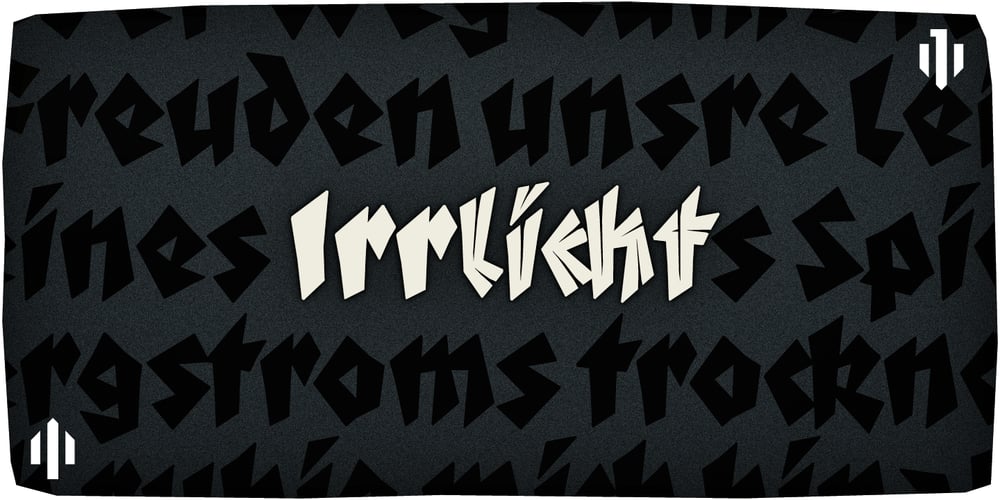
Irrlicht Font Family was designed by A. Hausel, Christian Heinrich Kleukens and published by Aarhaus. Irrlicht contains 2 styles and family package options. Irrlicht is based on C. H. Kleukens’ 1923 typeface Judith Type. Whilst Dunkle Irrlicht is a fairly faithful rendition and extension of Kleukens’ typeface, the Licht style was initially added as a stand-alone stencil version; yet, the two styles work perfectly together – for different nuances, for emphasis or simply stacked/layered. Irrlicht is equipped with upper- and lowercase ligatures, contextual and stylistic alternates, fractions, superior and inferior figures, extended language support and a few extra goodies. Additional information – How Irrlicht came to life Christian Heinrich Kleukens cut his Judith Type in 1923, at the peak of German expressionism, exclusively for publications with the Ernst-Ludwig-Press, such as a limited series of biblical prints – the first being the Book of Judith, hence the original’s name. I stumbled upon this typeface a couple of years ago in a nice little 1930 booklet of the Gutenberg-Gesellschaft and was struck by its forceful darkness on paper and its seemingly simple, crude letterforms. The lack of a long-ſ in the final version of Judith Type – quite unusual for a German typeface of that time – adds to this feel of crudeness and spontaneity*. Judith Type seemed to me like a semi-blackletter cousin of Rudolf Koch’s typeface Neuland (cast in the same year). Besides its apparent affinity with expressionism, it reflects a lot of that deeply spiritual craftsmanship of the era – much like Neuland. A few months later, when I was working on a stencil project and looking for a typeface that could be cut into thin wooden plates easily, I remembered those dark, sharp letters that seemed to be lacking any curves at all. After enlarging a few letters and tracing them by hand, the whole set was redrawn digitally, using only straight lines. As for spacing, the goal was to keep the letters tight but to avoid touching characters – without ironing out all the original’s tension and rhythm. Deliberate kerning, subtle contextual alternates and ligatures help to deal with critical glyph combinations. Two additional versions were developed: a stencil version with open counters and, in reference to a popular style of the 1920s and inspired by dry, cracked wood, an inline version. These two additional styles were later merged into one font – Lichte** Irrlicht was born. — AARHAUS * Consequently, the original typeface’s German eszett is simply a ligature of the “round s” and standard z. In some of his publications, Kleukens dispenses with using eszett altogether and sets double s instead. Irrlicht, however, does feature a more common eszett (ß); the original, among other more faithful letter forms, can be accessed via the stylistic sets feature ** licht – literally bright – being the German term for inline typefaces – not to be confused with leicht (light)